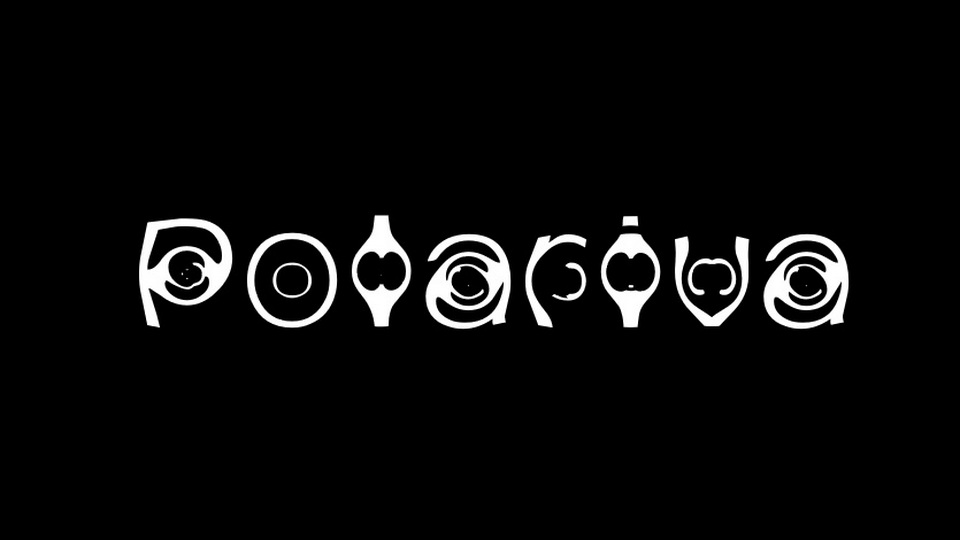
Download Polariva font, an experimental display typeface designed to create a funky, unique look. With its distorted look Polariva font is best for posters, album artworks and typography compositions.